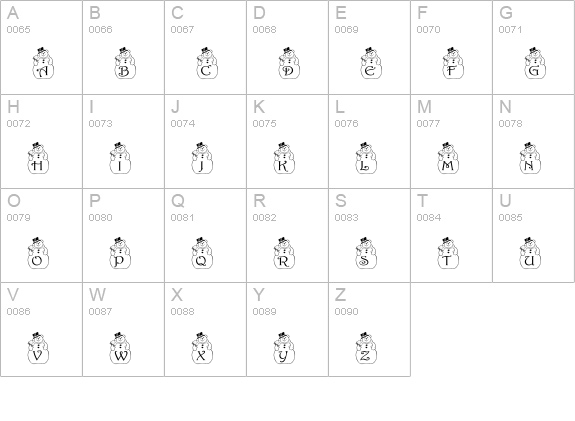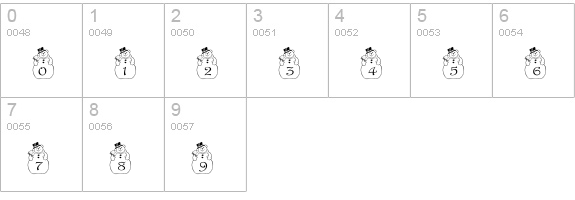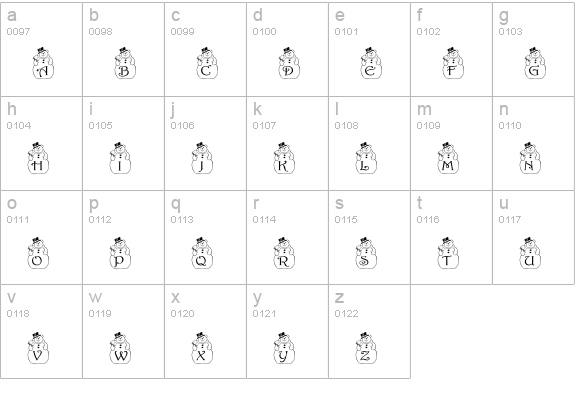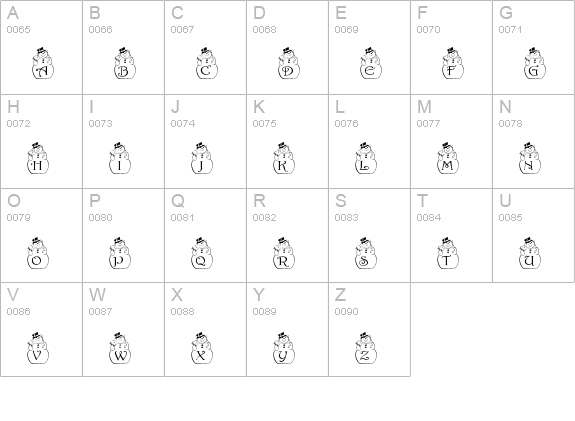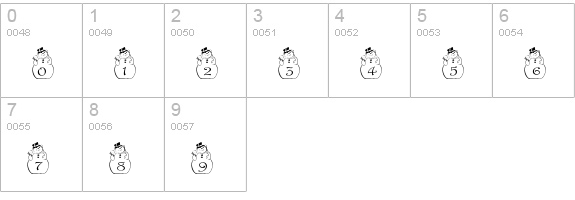
pf_snowman2 Font Details
Introducing pf_snowman2, a captivating and whimsical font that is sure to bring a touch of winter wonder to your designs. This unique font features charming snowman-inspired characters, complete with carrot noses and top hats, adding a playful and festive element to any project. With its friendly and approachable appearance, pf_snowman2 is perfect for a variety of creative endeavors, such as holiday cards, party invitations, winter-themed posters, and more. Its delightful design captures the essence of the holiday season, evoking feelings of warmth, joy, and nostalgia. But that's not all! What makes pf_snowman2 even more special is that it is available for free download at FontsMarket.com. Yes, you read that right - this enchanting font can be yours at no cost. Whether you're a professional designer or a hobbyist, you can easily access and enjoy this font, allowing you to add a touch of winter magic to your projects without breaking the bank. So why wait? Embrace the spirit of the season and let pf_snowman2 become your go-to font for all things winter-related. Download it today and let your creativity soar as you transform your designs into a snowy wonderland. Remember, pf_snowman2 is just a click away at FontsMarket.com - where quality and affordability meet, ensuring that everyone can enjoy the beauty of this delightful font.